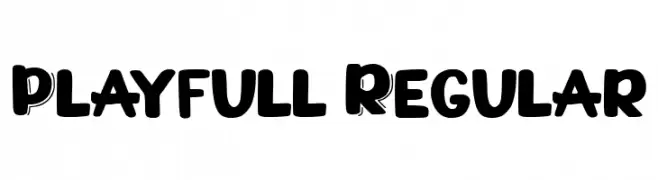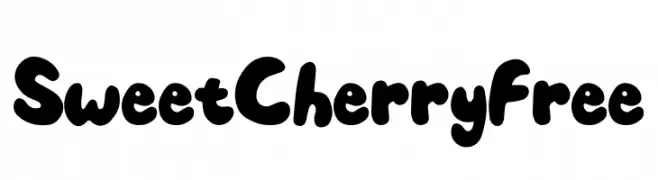
( Fonts by Creatype Studio )
A playful, bold font with rounded strokes and a whimsical charm.
( Fonts by Creatype Studio )
A decorative font with a hand-drawn, textured style and whimsical flair.
( Fonts by Creatype Studio )
A playful, hand-drawn font with rounded, bubbly characters.
( Fonts by Attype Studio )
A bold, rounded typeface with a playful and friendly style.
( Fonts by Attype Studio )
A playful, dripping style font with a whimsical and decorative appearance.
( Fonts by dcoxy )
A playful, bold font with rounded, whimsical characters.
( Fonts by Mariyana )
A playful, bold font with rounded, bubbly characters.
( Fonts by Denny Subagja )
A bold, expressive handwritten font with playful curves and a modern style.
( Fonts by Typefactoryco )
A bold, playful font with rounded, hand-drawn style characters.
( Fonts by Typefactoryco )
A playful, bold font with rounded, thick strokes and a whimsical touch.